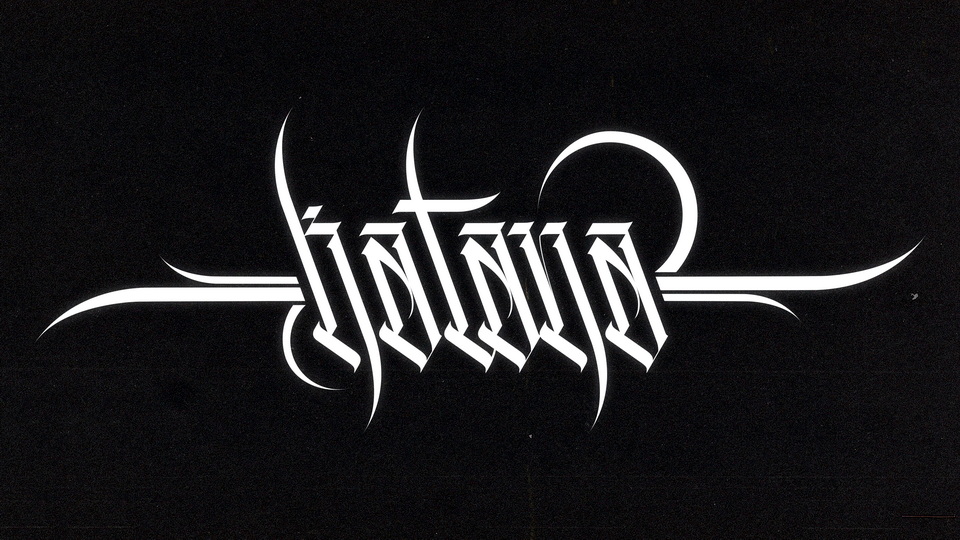
Download Kapana font, a modern blackletter typeface. Katana font is perfect for branding projects, logo, album covers, social media, tattoo design and any projects that need calligraphic taste.